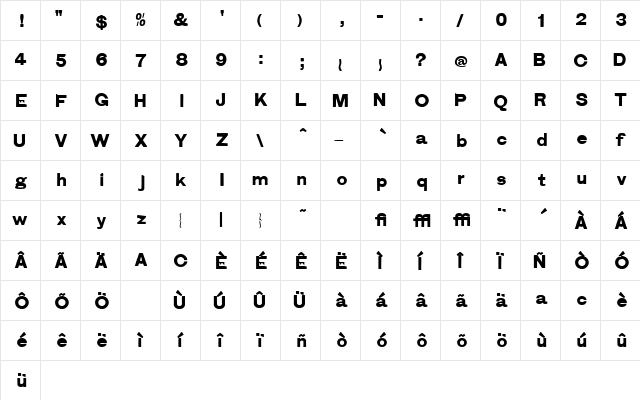
Times Gothic HPLHS
Design Context for Times Gothic Typeface
Times Gothic has the quiet confidence of well-executed sans-serif typography: versatile, unobtrusive, and dependable at any size.
Font Pairing: Works well alongside a characterful serif or display font that can carry the expressive load while Times Gothic handles the functional copy.
Pro Tip: Pair Times Gothic with a display or serif font for headlines — its neutral character makes it an excellent supporting player in complex typographic systems.